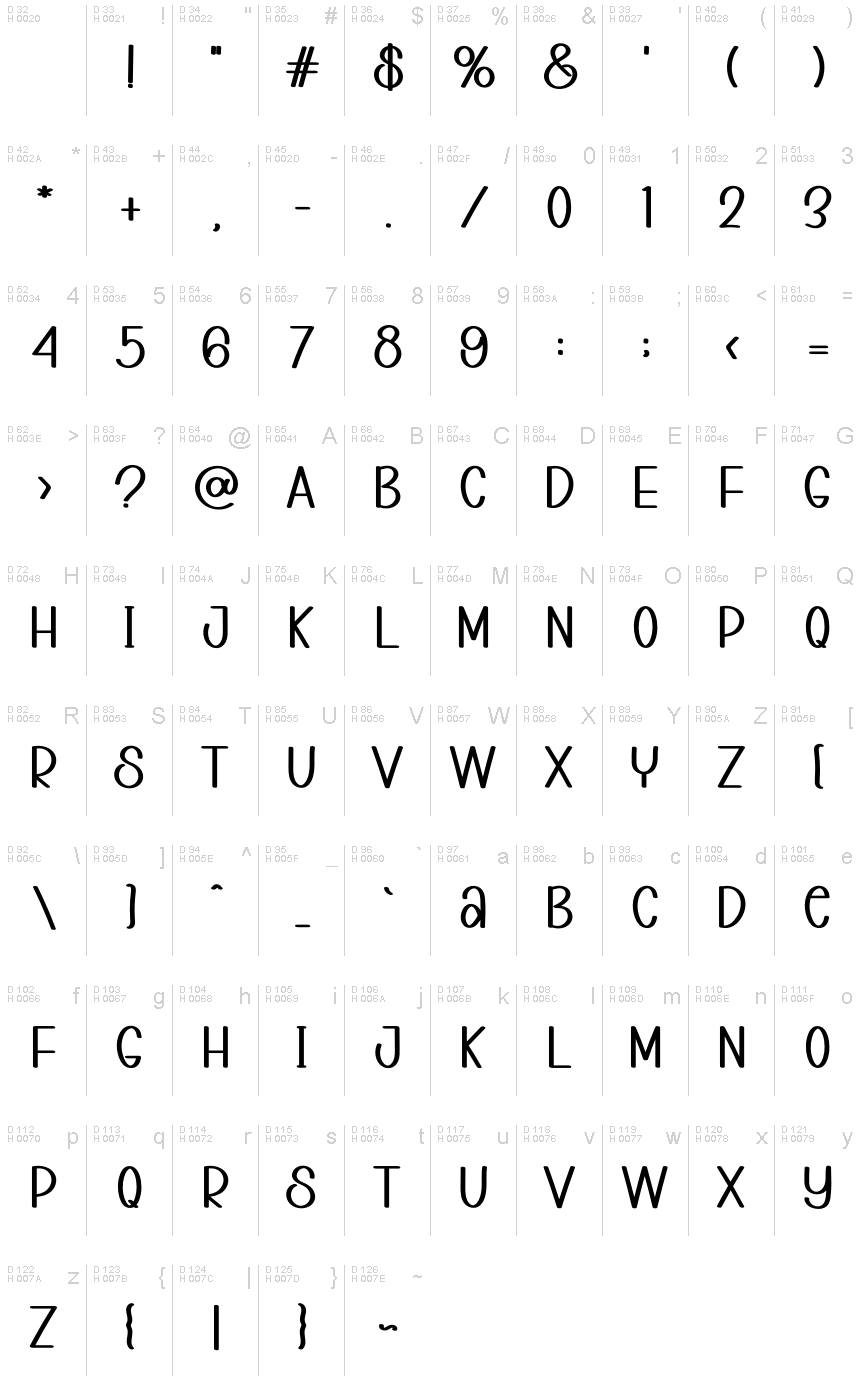
CREATIVE PLANNER
Creative Planner by FreshtypeINK is a font that captures the spontaneity and charm of handwritten script with its fluid, organic strokes. Its casual elegance and personal touch evoke the feel of a quick note jotted down in a journal or a creative brainstorm captured on the corner of a napkin. With its slightly varied line thickness and free-flowing form, Creative Planner brings an authentic, approachable vibe to any project.
This font's aesthetic flexibility makes it ideal for designs that require a touch of intimacy without sacrificing readability-perfect for personalized stationery, unique branding elements, or evocative marketing materials where a human touch makes all the difference.